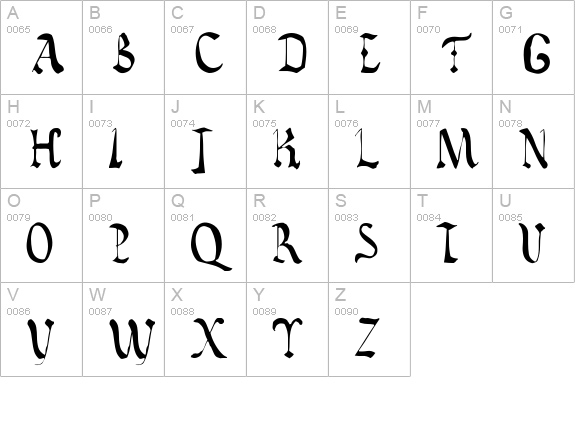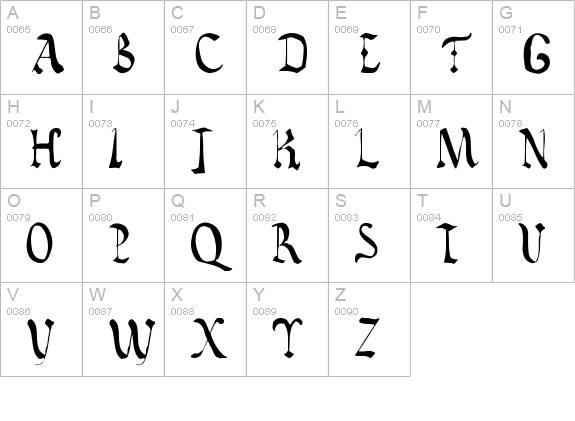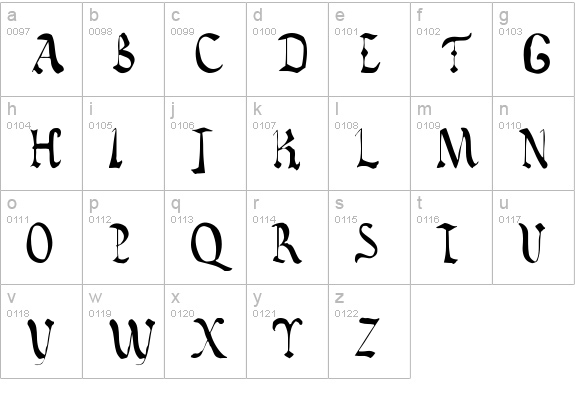
Vatican Rough Letters, 8th c. Font Details
Introducing Vatican Rough Letters, an exquisite 8th-century font that exudes an undeniable sense of timeless elegance. Inspired by the meticulously handcrafted letters found in ancient Vatican manuscripts, this font captures the essence of a bygone era, bringing it into the modern digital age. With its intricate and slightly weathered appearance, Vatican Rough Letters transports you back in time, evoking a sense of historical grandeur. Every curve and stroke of this font reflects the dedication and artistry of the scribes who meticulously transcribed important texts and sacred scriptures. Its rough edges and imperfect lines add a touch of authenticity, giving your designs a unique and organic charm. Whether you are designing a historical book cover, crafting a vintage-inspired logo, or creating an enchanting invitation, Vatican Rough Letters adds a touch of class and sophistication to any project. Its versatility allows it to seamlessly blend with both traditional and contemporary designs, making it a truly timeless choice. But what truly sets Vatican Rough Letters apart is its accessibility. We believe that beautiful fonts should be available to everyone, which is why Vatican Rough Letters is freely available to download at FontsMarket.com. Embracing the spirit of inclusiveness, we want designers and creatives from all walks of life to have the opportunity to enhance their work with this exceptional font. So, whether you are a professional designer or an aspiring artist, Vatican Rough Letters invites you to explore the rich history and elegance of the 8th century. Download it for free at FontsMarket.com and let your creativity soar as you breathe new life into your designs with this remarkable font.